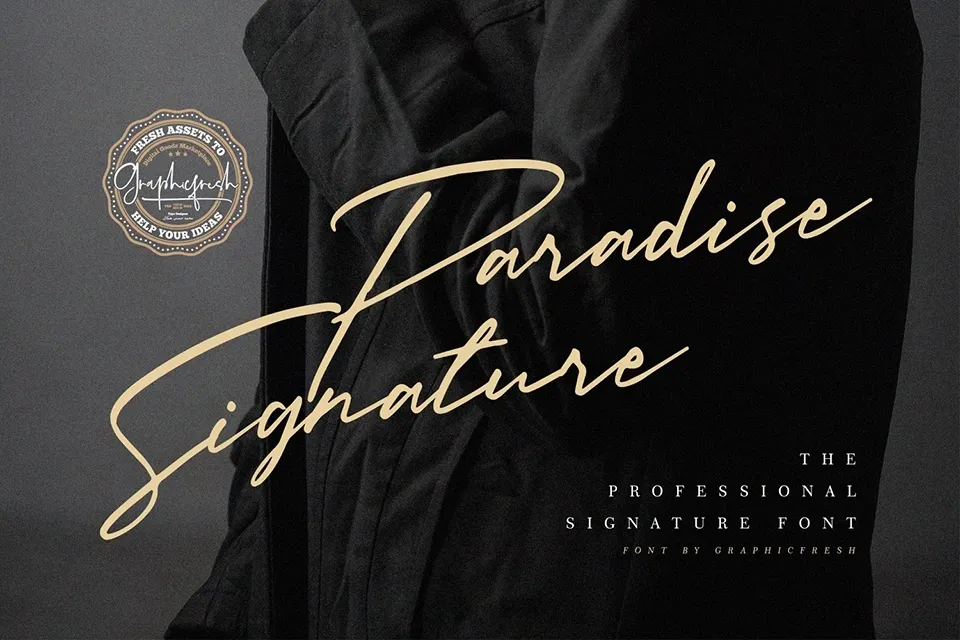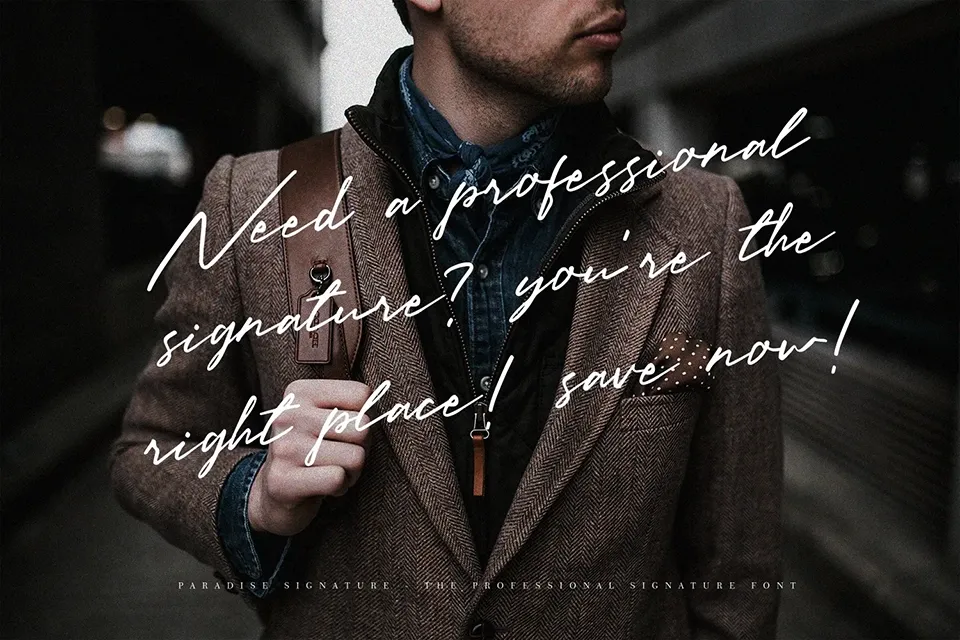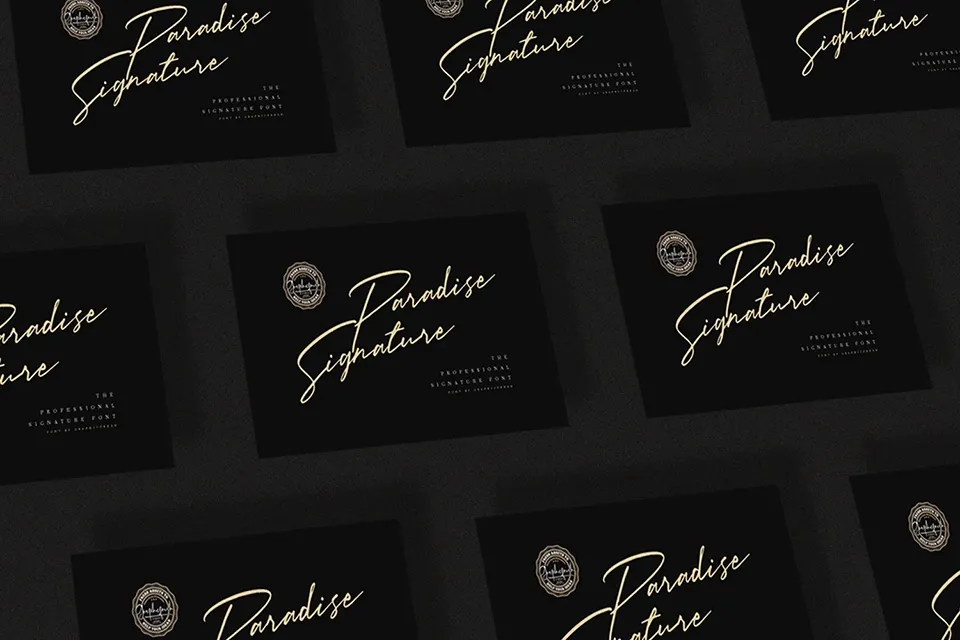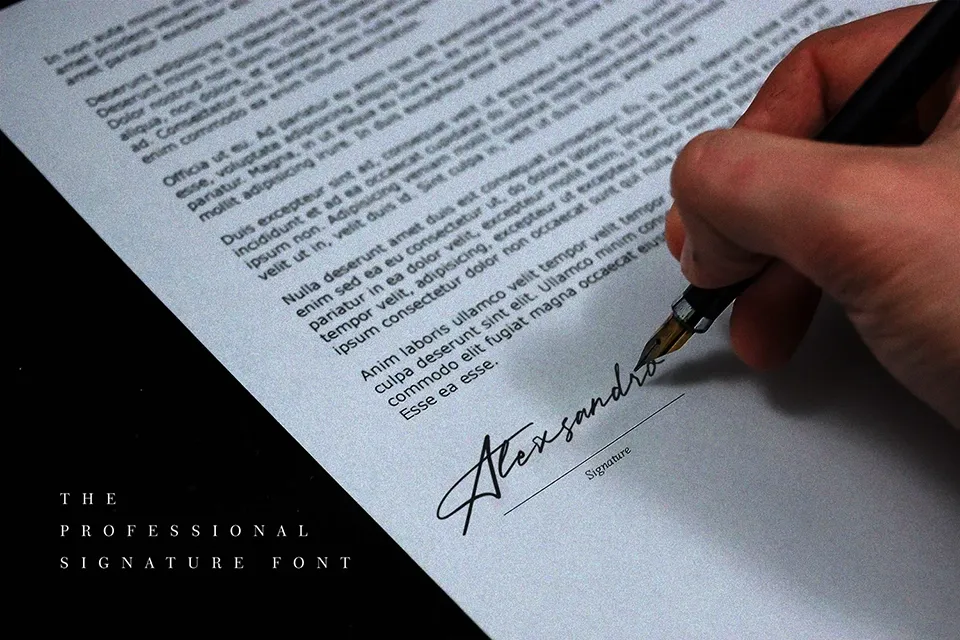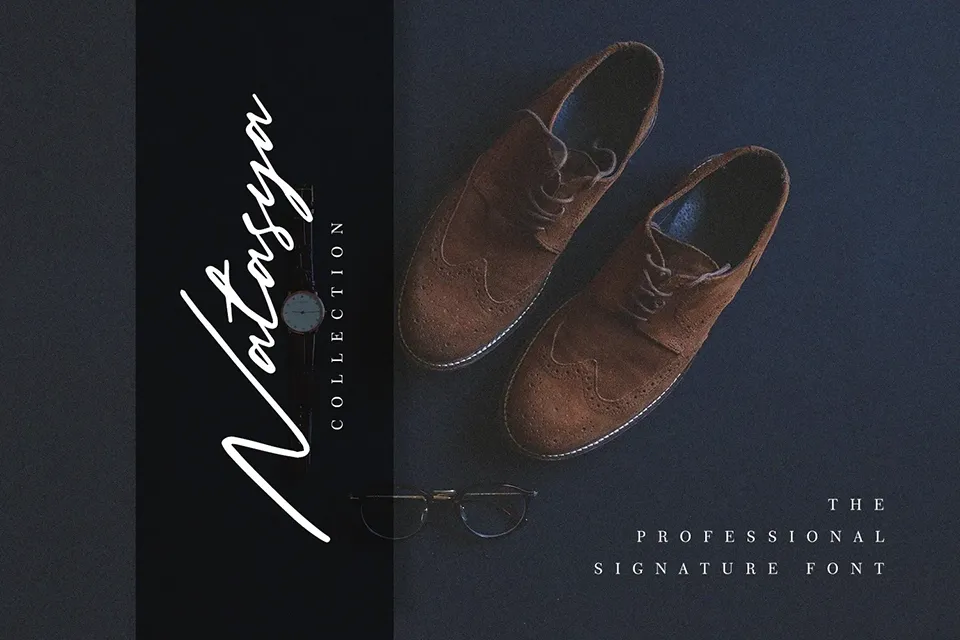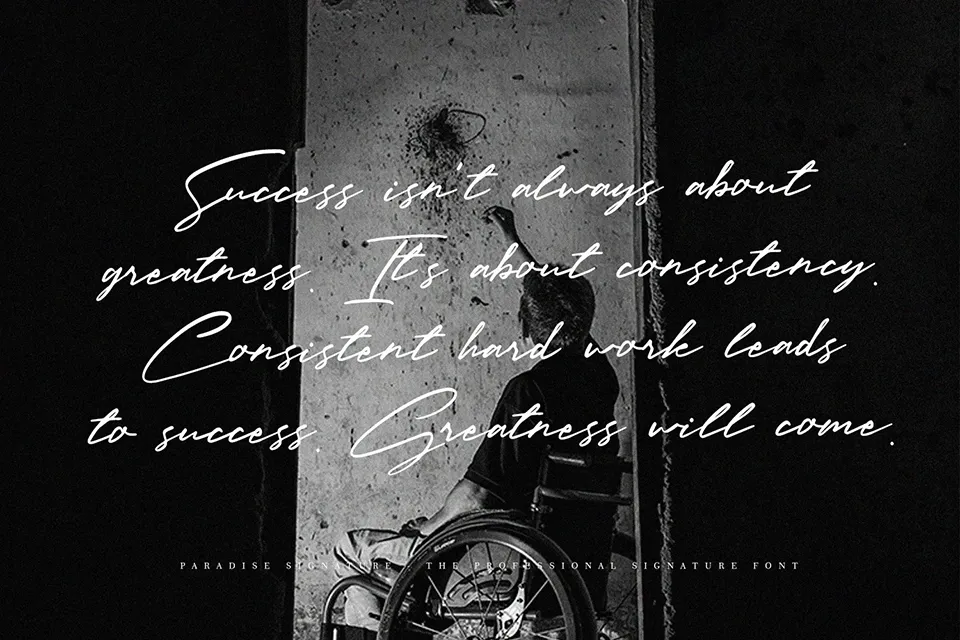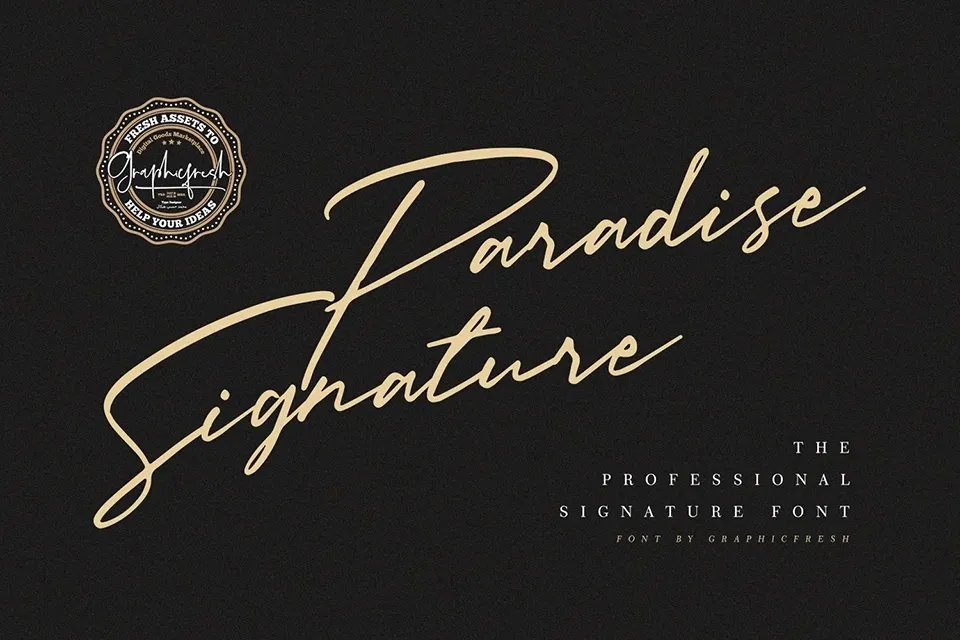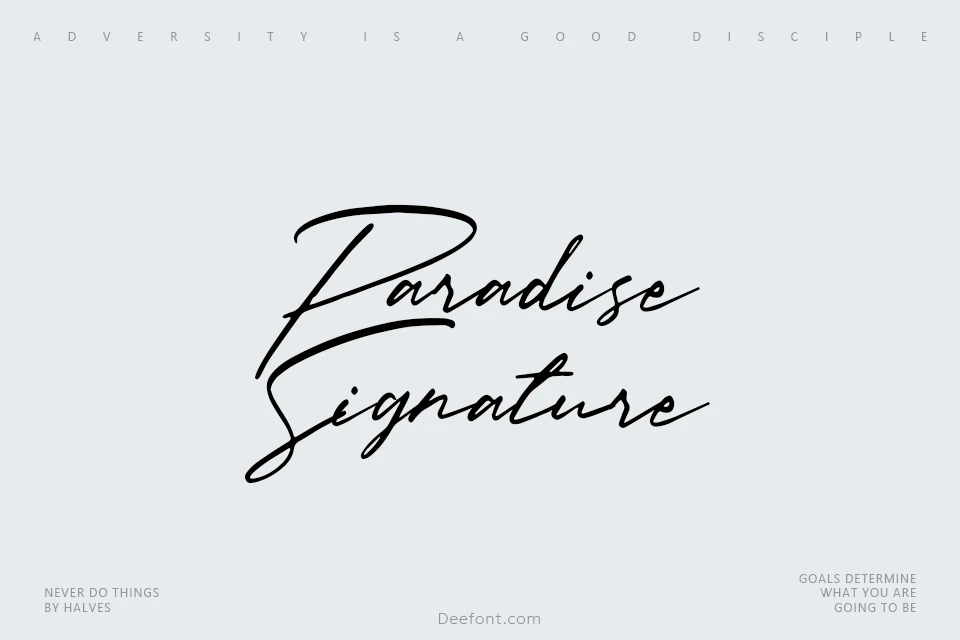
Paradise Signature Font
Paradise Signature Font is a sophisticated and professional script typeface designed to emulate the elegance of handwritten signatures. Its smooth, flowing strokes and refined curves make it ideal for branding, logos, invitations, and stationery. Perfect for projects that demand a luxurious and personal touch, Paradise Signature Font exudes charm and exclusivity. The font’s stylish aesthetic ensures your designs stand out with a polished and modern look. Whether used for formal occasions or creative endeavors, this typeface adds a sense of individuality and class to your work. Elevate your designs with Paradise Signature Font—a timeless choice for elegant creations.